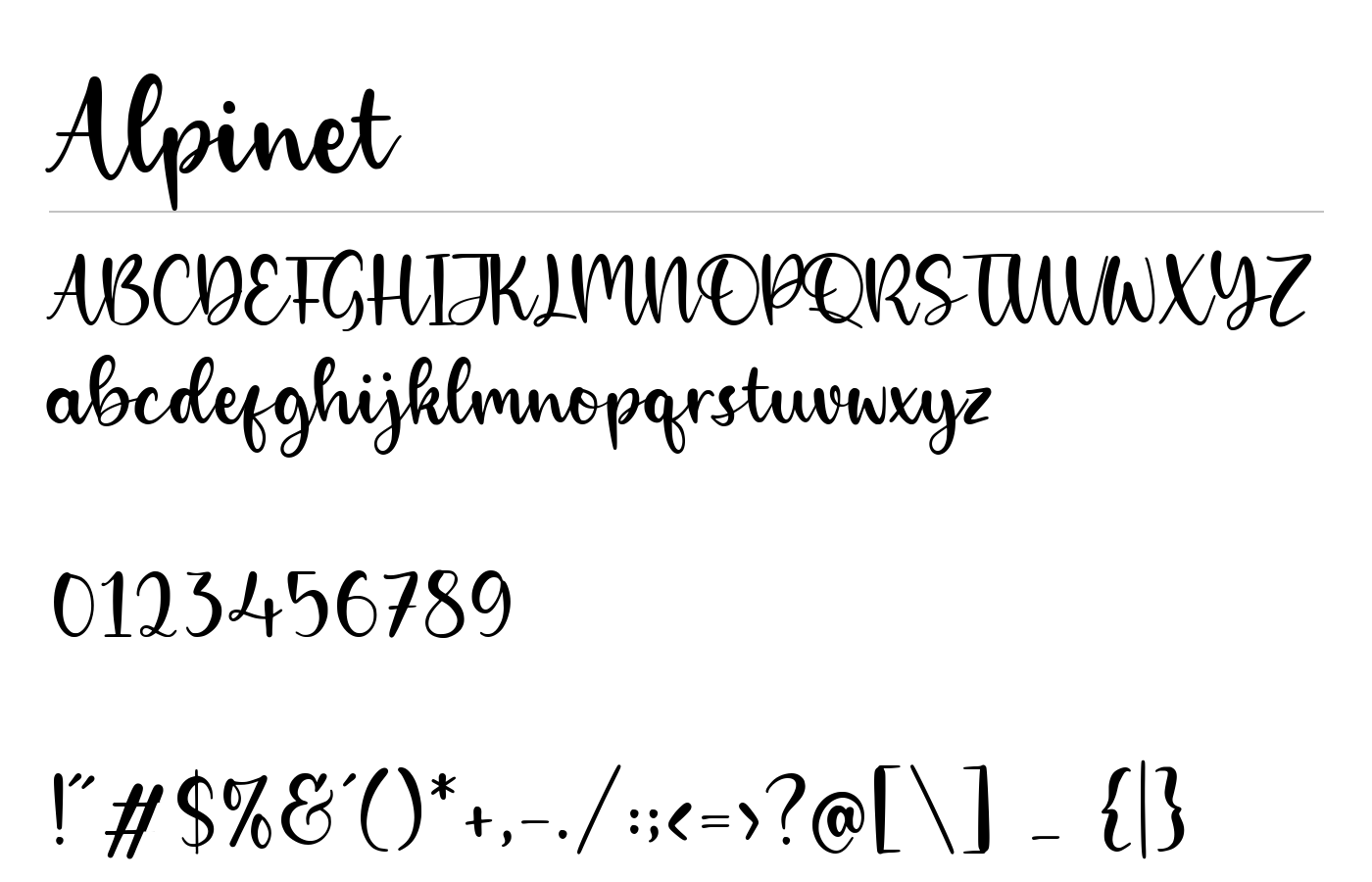
Alpinet is a playful and elegant handwritten script font featuring a casual yet refined style with smooth, flowing strokes and moderate contrast. Its natural, slightly narrow letterforms and unique uppercase details make it perfect for creative projects, branding, invitations, and headline use where a personal and friendly touch is desired. This font adds charm and warmth, making it ideal for fashion, lifestyle, and artistic designs that want to communicate approachability and creativity.
Alpinet Font
About Alpinet Font
| Font family | Alpinet Font |
| Designer | Letterative Studio |